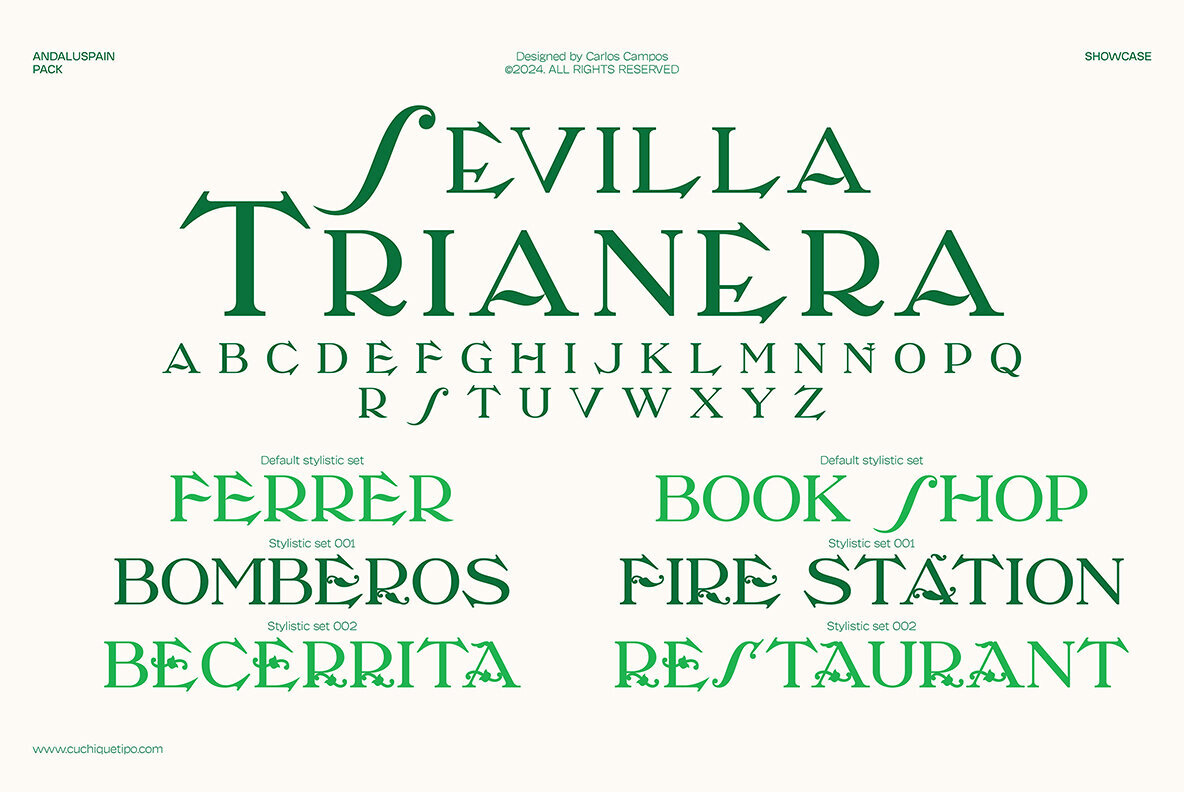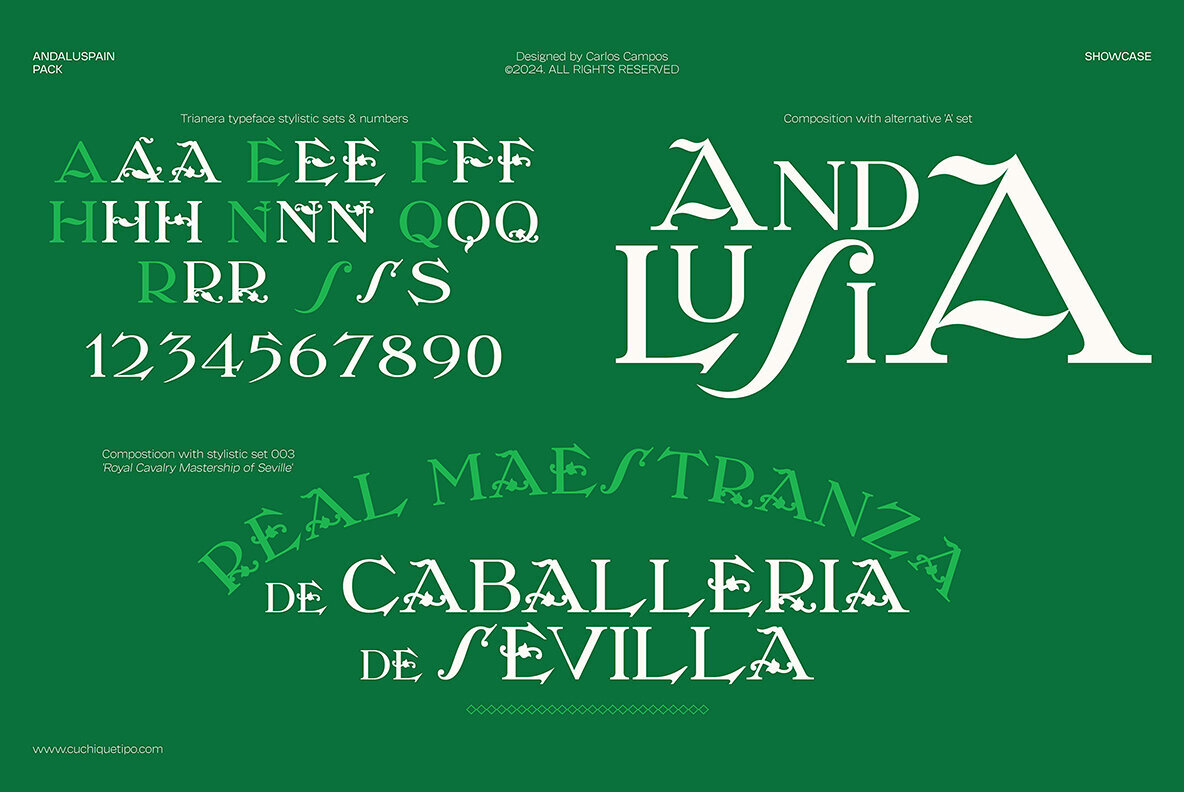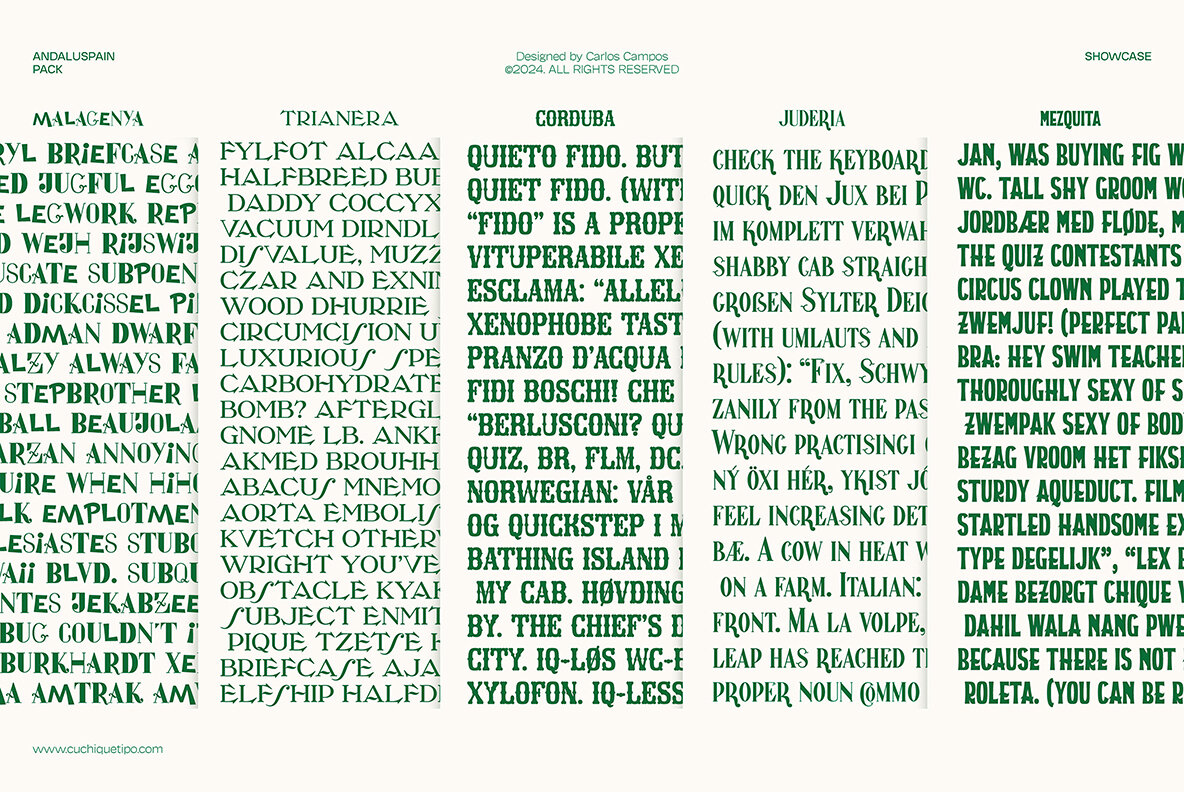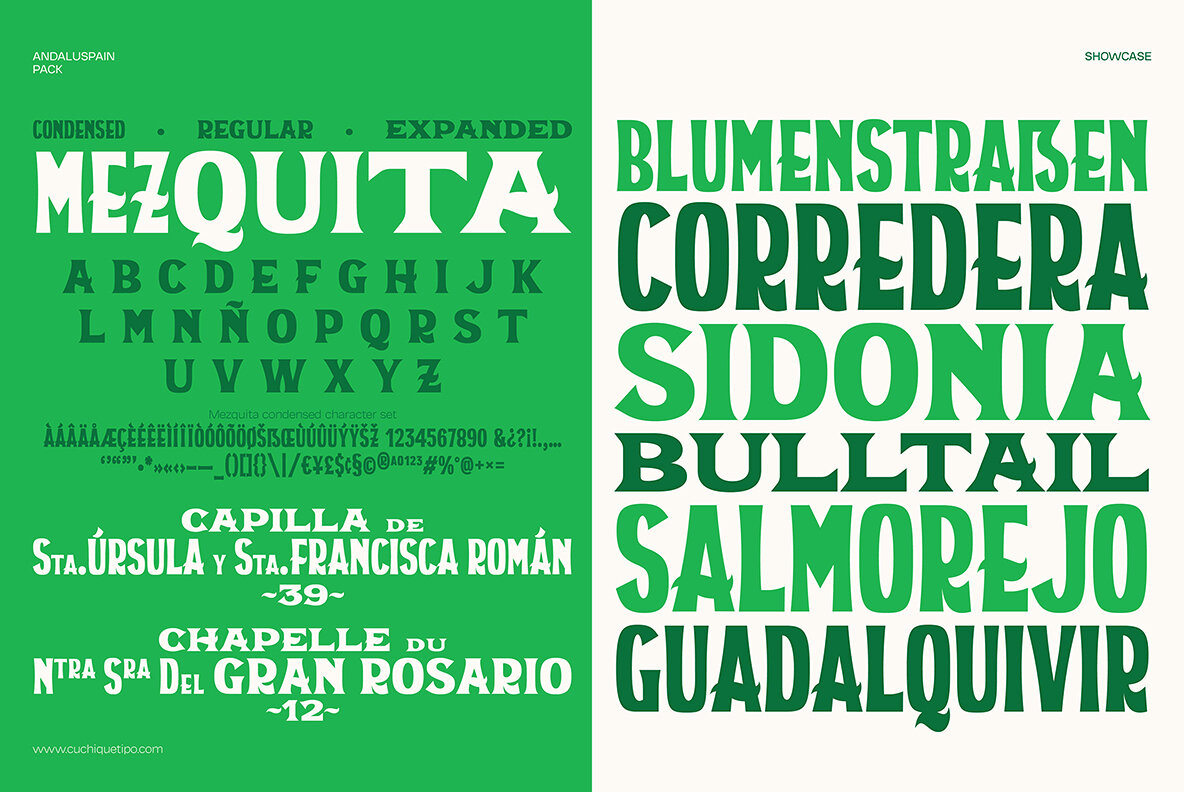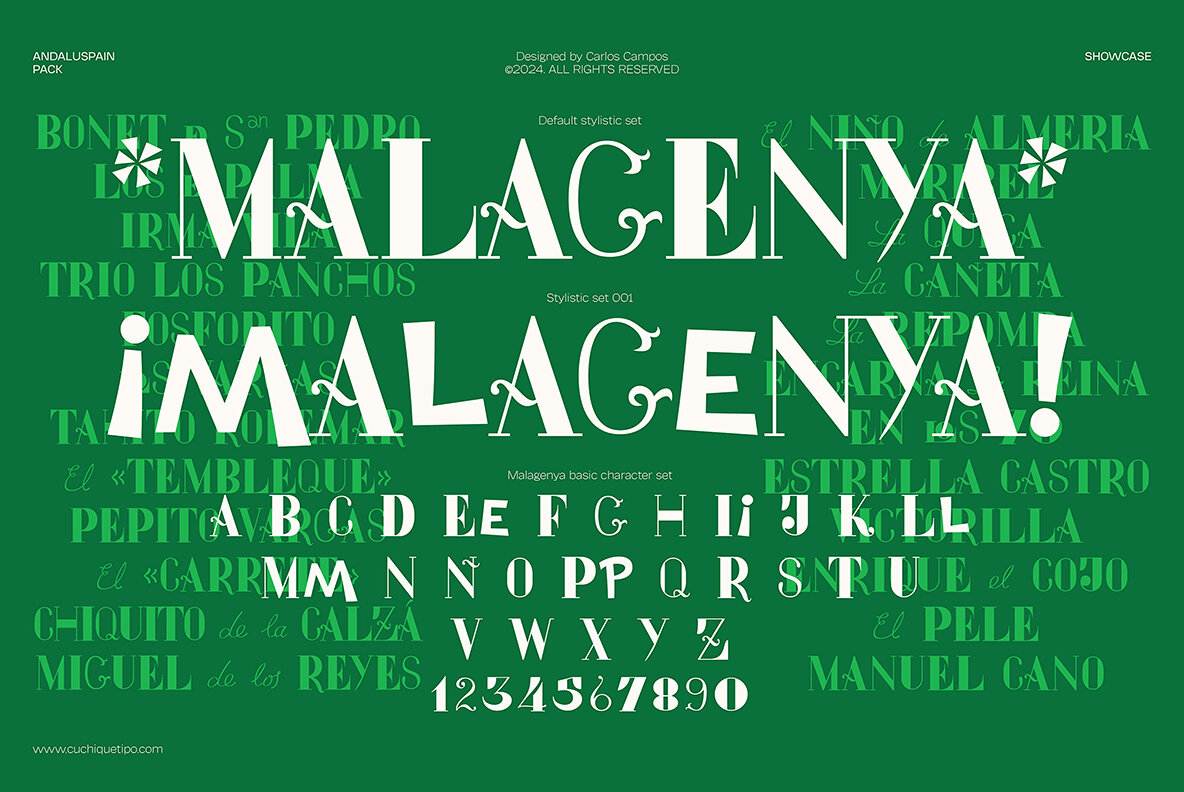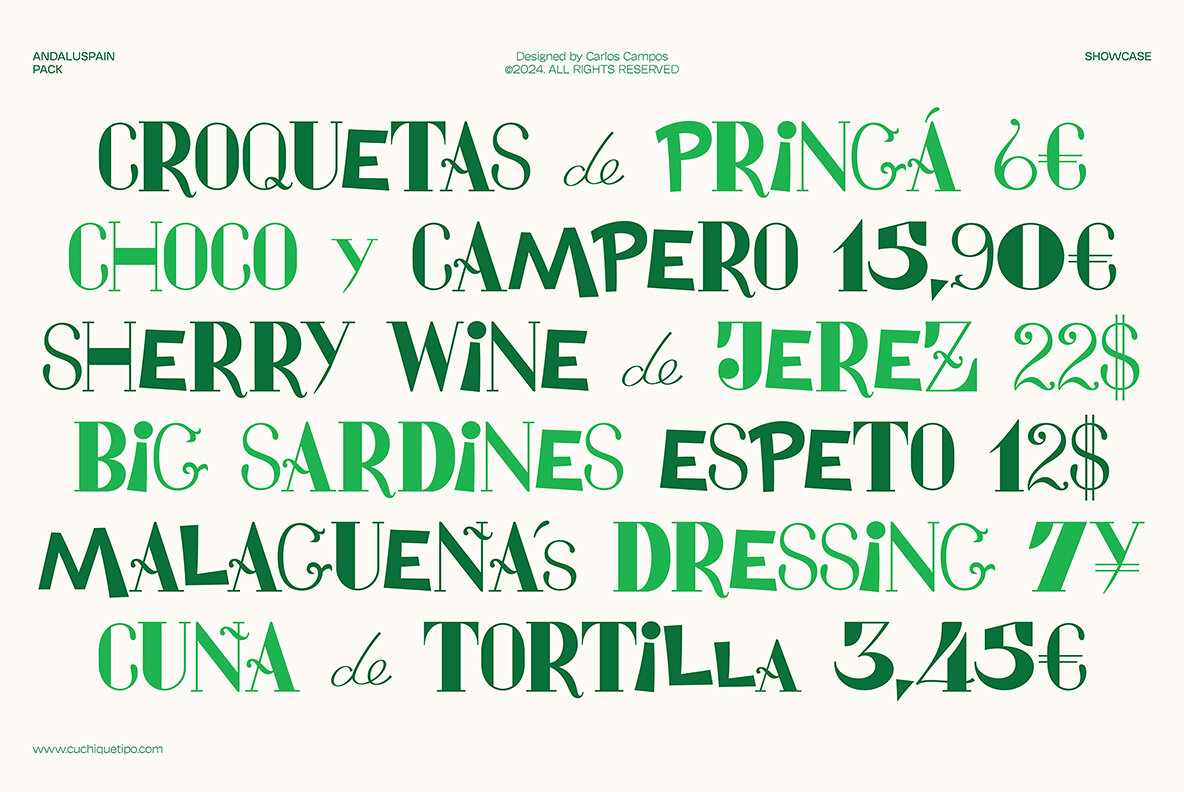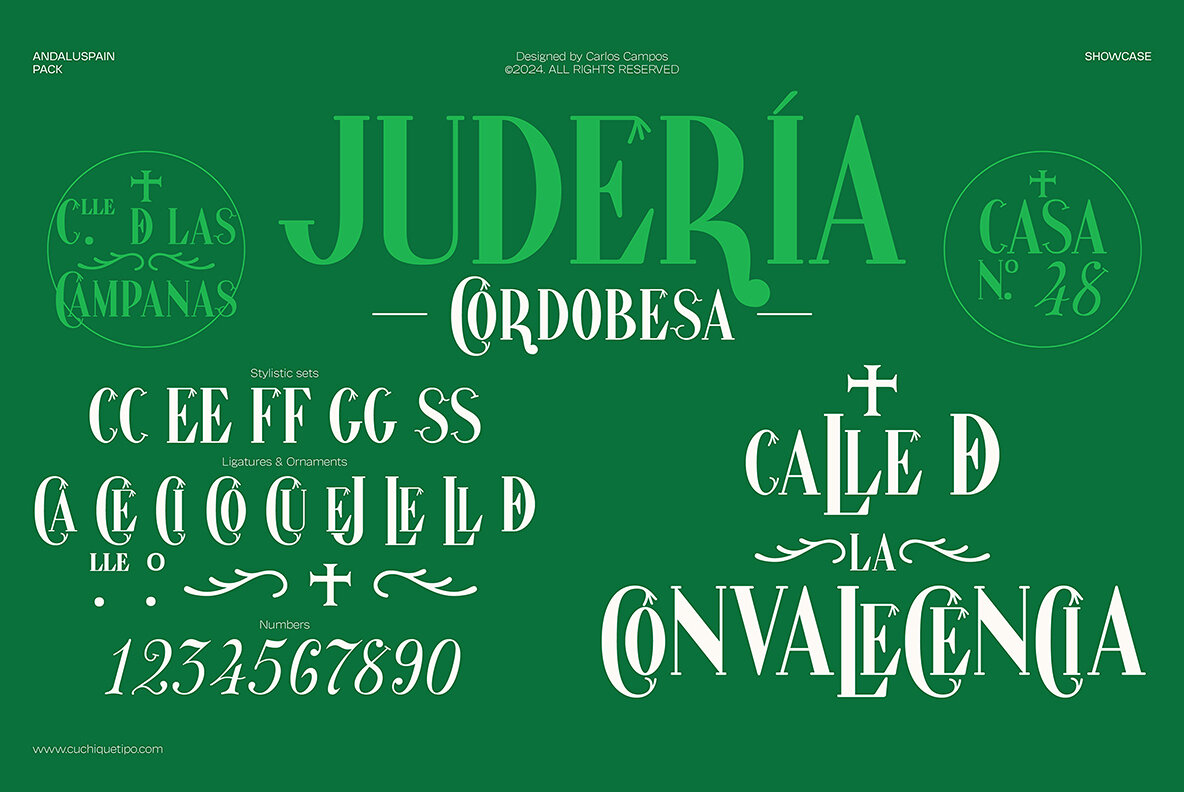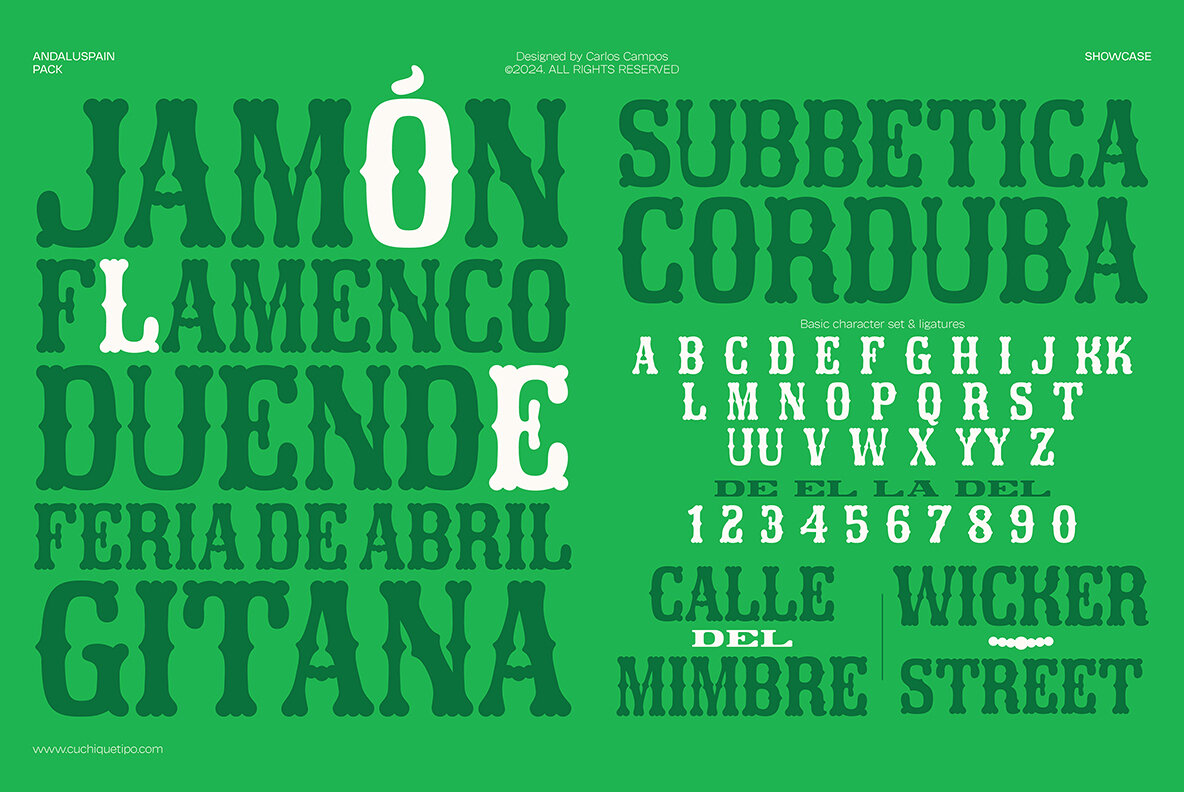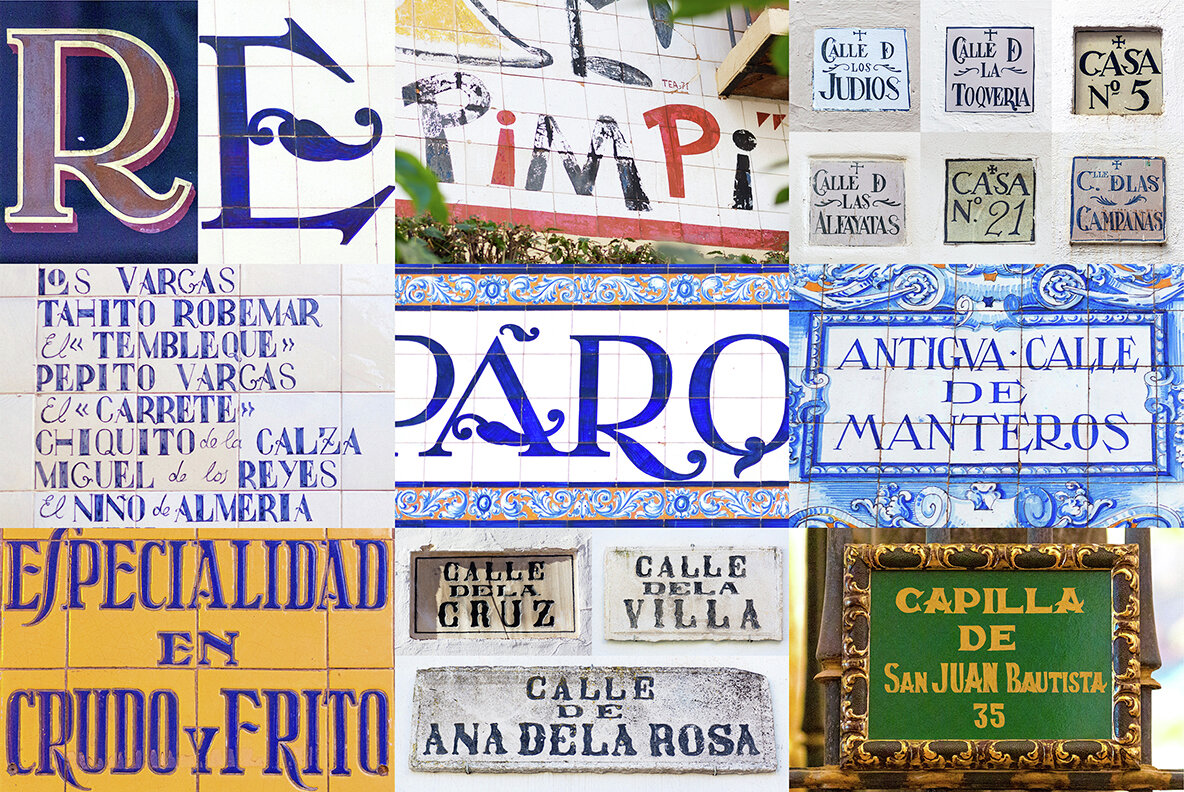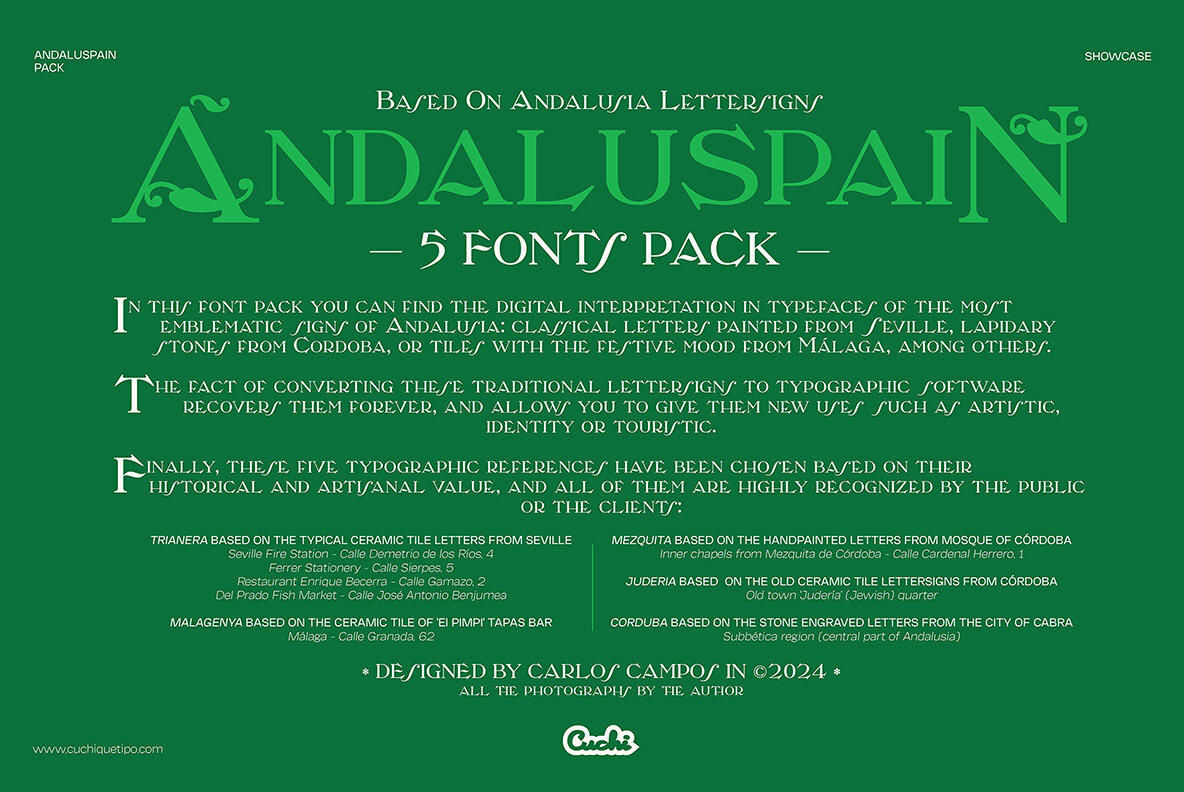
In this font pack you can find the digital interpretation in typeface systems of the most emblematic signs of Andalusia: classical letters painted from Seville, lapidary carved in stones from Cordoba, or tiles with the festive mood from Malaga, among others.
The fact of converting these traditional lettersigns to typographic software recovers them forever, and allows you to write with them as many times as you want, giving them new uses such as artistic, identity or touristic. Finally, these five typographic references have been chosen based on their historical and artisanal value, and all of them are highly recognized by the public or clients.
Designed by Carlos Campos in 2024.
Carlos Campos (Cuchi qué tipo) is a graphic and typography designer based in southern Spain. He is also currently working in the investigation and recovery of street and traditional signs, as a project called “Rótulos chuléricos de Jaén”.